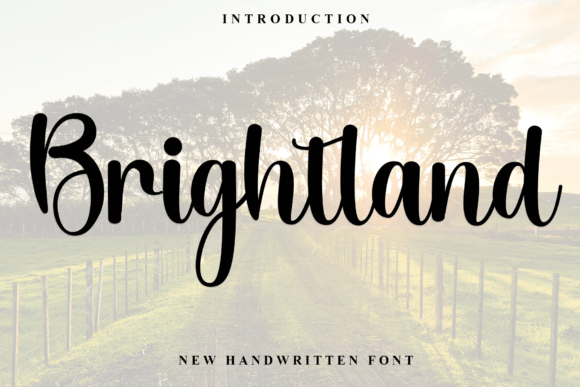
The Designer’s Delight: A Deep Dive into Brightland Font
I’ll never forget the time I was working on a wedding invitation project, and my client asked for a font that was “elegant, modern, and classy.” I scoured the internet, trying out font after font, but nothing seemed to fit the bill. That was until I stumbled upon Brightland Font. ✨
Brightland is a beautiful and refined handwritten font that has a sophisticated, elegant, and modern look. It’s perfect for logos, branding, invitations, stationery, wedding designs, social media posts, and much more! In this article, I’ll share my honest review of Brightland Font, provide a practical guide on how to use it, and explore similar fonts and alternatives.
An Honest Review of Brightland Font
- ✨ Beautifully crafted glyphs and ligatures: Brightland Font is PUA encoded, making it easy to access all the amazing glyphs and ligatures.
- ✅ Elegant and modern design: The font has a classy and refined look that’s perfect for high-end designs.
- 🌈 Versatile: Brightland Font can be used for a wide range of projects, from logos and branding to social media posts and wedding designs.
While Brightland Font is an amazing font, there are a few quirks to be aware of:
- 🤔 Limited availability of certain characters: Some users have reported that certain characters, such as the Euro symbol, are not available.
- ⚠️ Requires OpenType features: To get the most out of Brightland Font, you’ll need to use OpenType features, which can be a bit tricky for beginners.
The Designer Inspiration Behind Brightland Font
Brightland Font was designed with the modern designer in mind. The font’s creator wanted to craft a font that was both elegant and modern, with a sophisticated feel that’s perfect for high-end designs. The result is a font that’s both versatile and beautiful, perfect for a wide range of projects.
Q: What is Brightland Font?
A: Brightland Font is a beautiful and refined handwritten font with a classy, elegant, and modern look.
Q: Is Brightland Font PUA encoded?
A: Yes, Brightland Font is PUA encoded, making it easy to access all the amazing glyphs and ligatures.